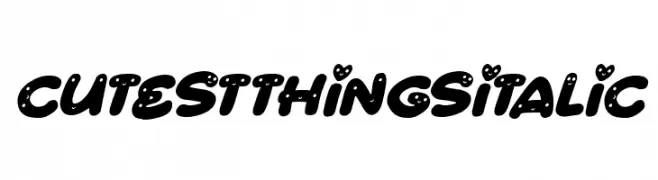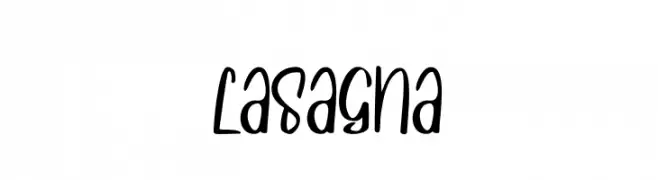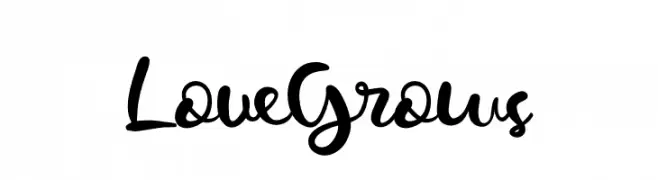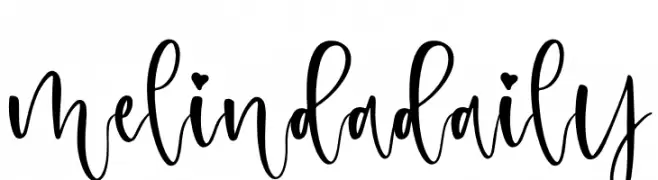
A playful collection of heart-themed doodles with a whimsical, hand-drawn style.
A playful, bold font with heart and dot decorations, perfect for whimsical designs.
A lively and elegant script font with flowing, cursive letterforms and whimsical charm.
A playful, cursive font with a whimsical, handwritten style.
A playful and whimsical font with charming symbols and rounded characters.
A playful, handwritten font with dynamic strokes and whimsical elements.
Hand-drawn, whimsical doodle symbol font.
A playful, heart-encased decorative font ideal for whimsical projects.
A playful, heart-themed decorative font with bold, rounded characters.
A playful handwritten font with smooth curves and whimsical details.